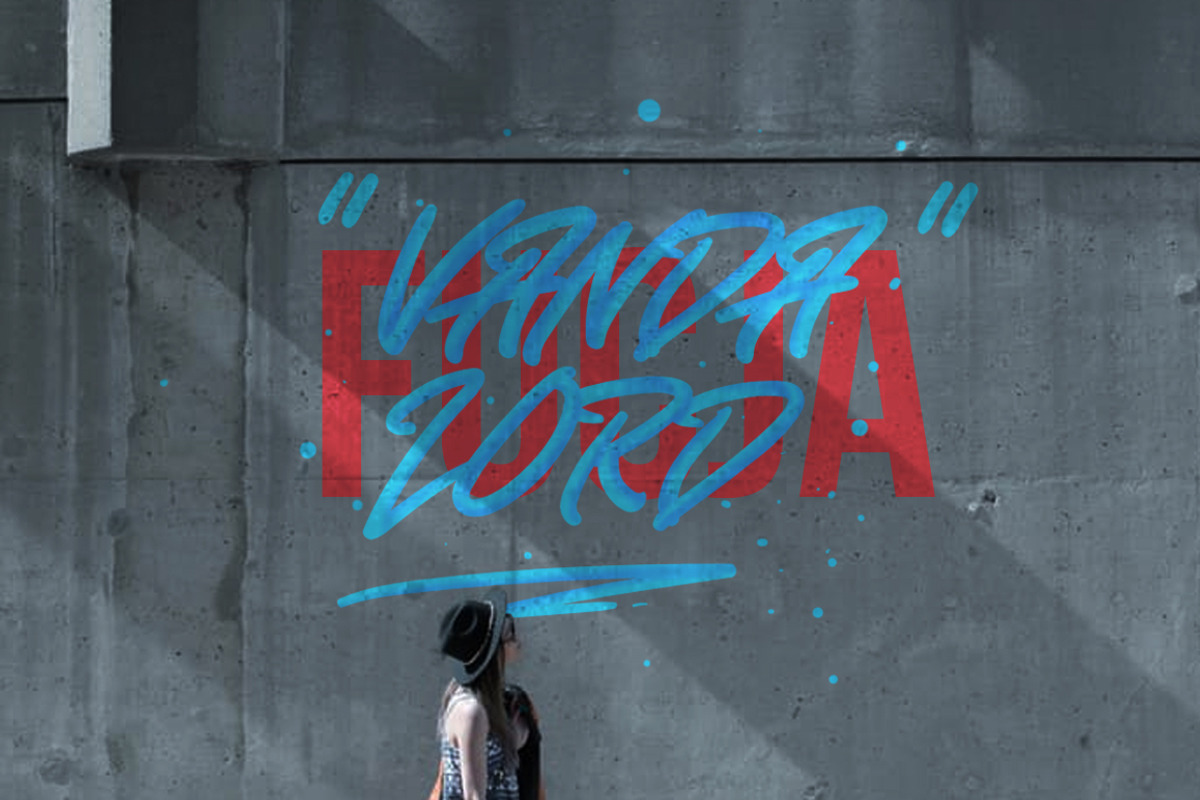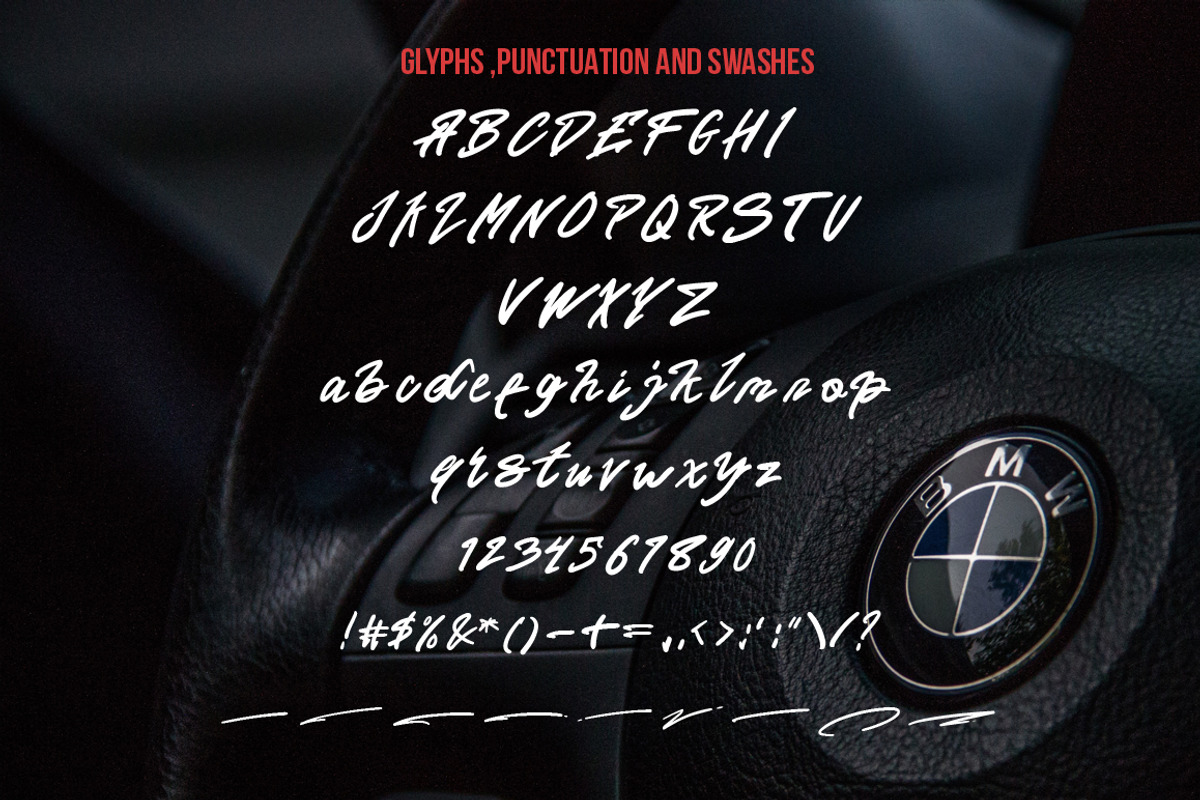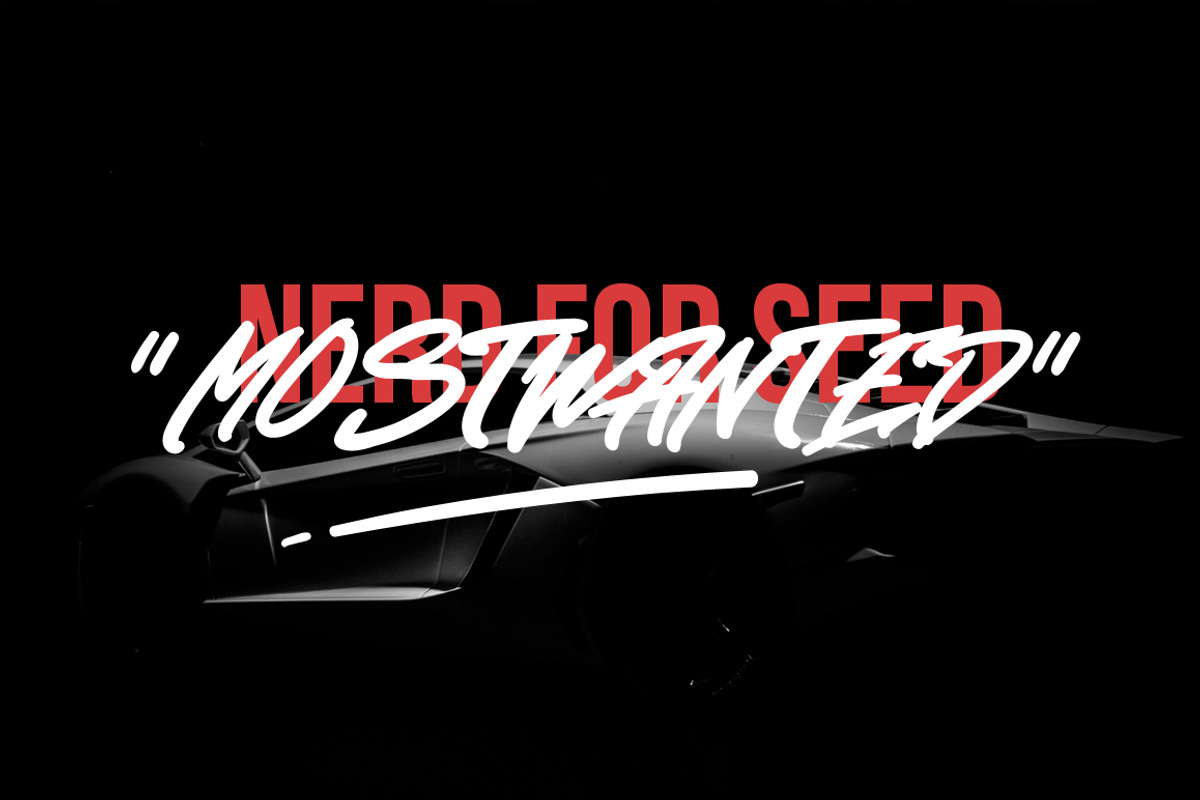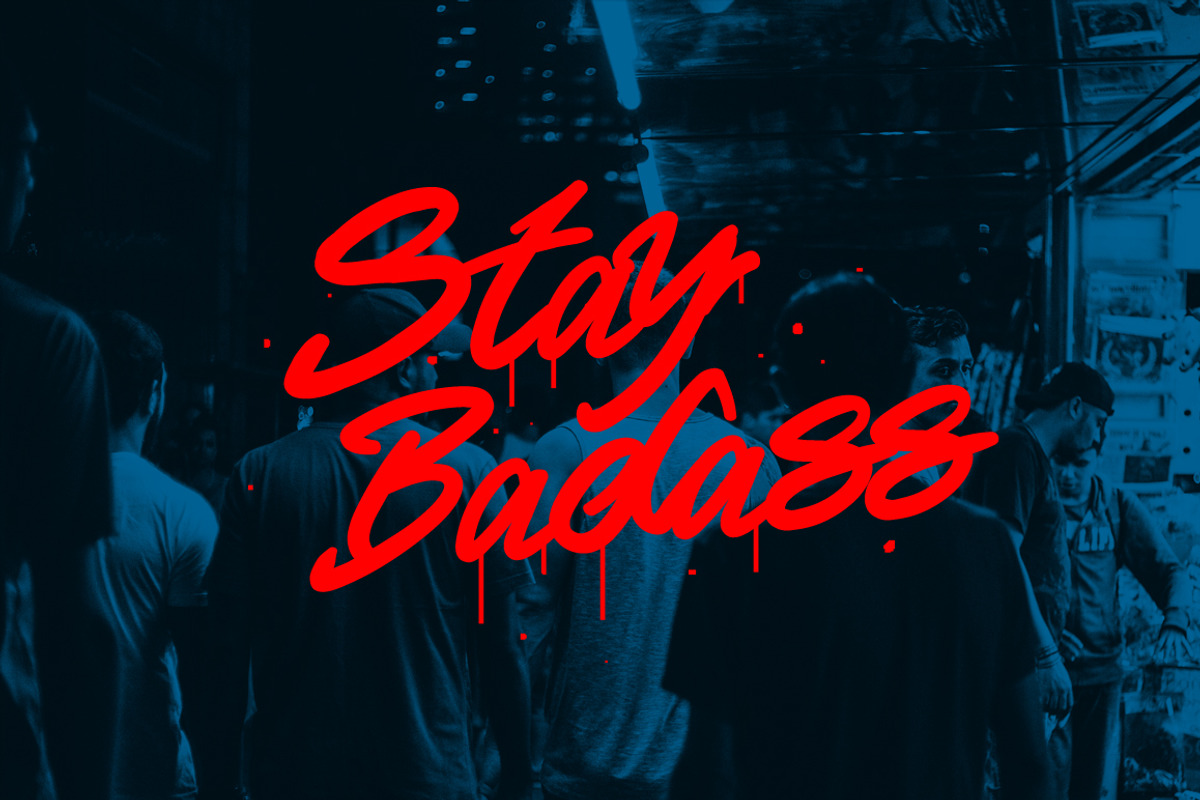
Vandalord Grafiti Font (Prelaunch)
Vandalord Grafiti Font (Prelaunch) by Haws.std is a font selected for branding, posters, packaging, typography.
Why Vandalord Grafiti Font (Prelaunch) is worth a look
Vandalord Grafiti Font (Prelaunch) by Haws.std fits naturally into Branding, posters, packaging, typography.